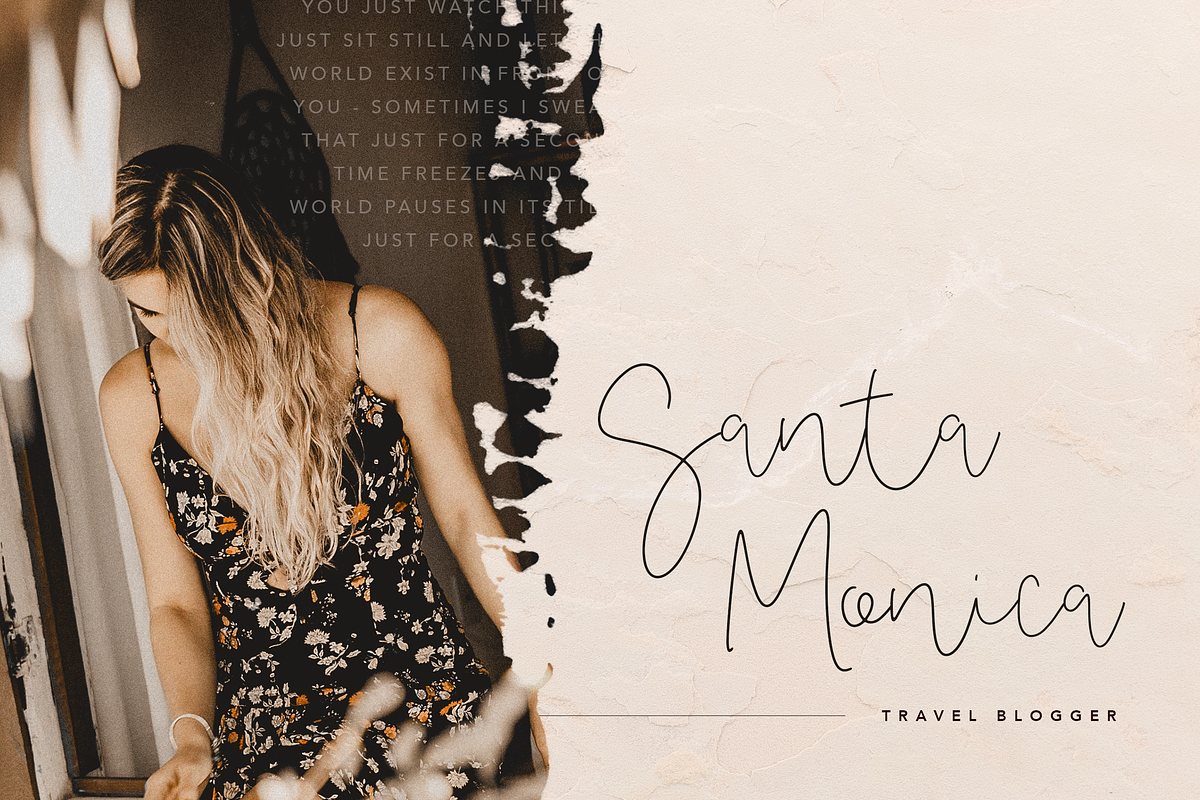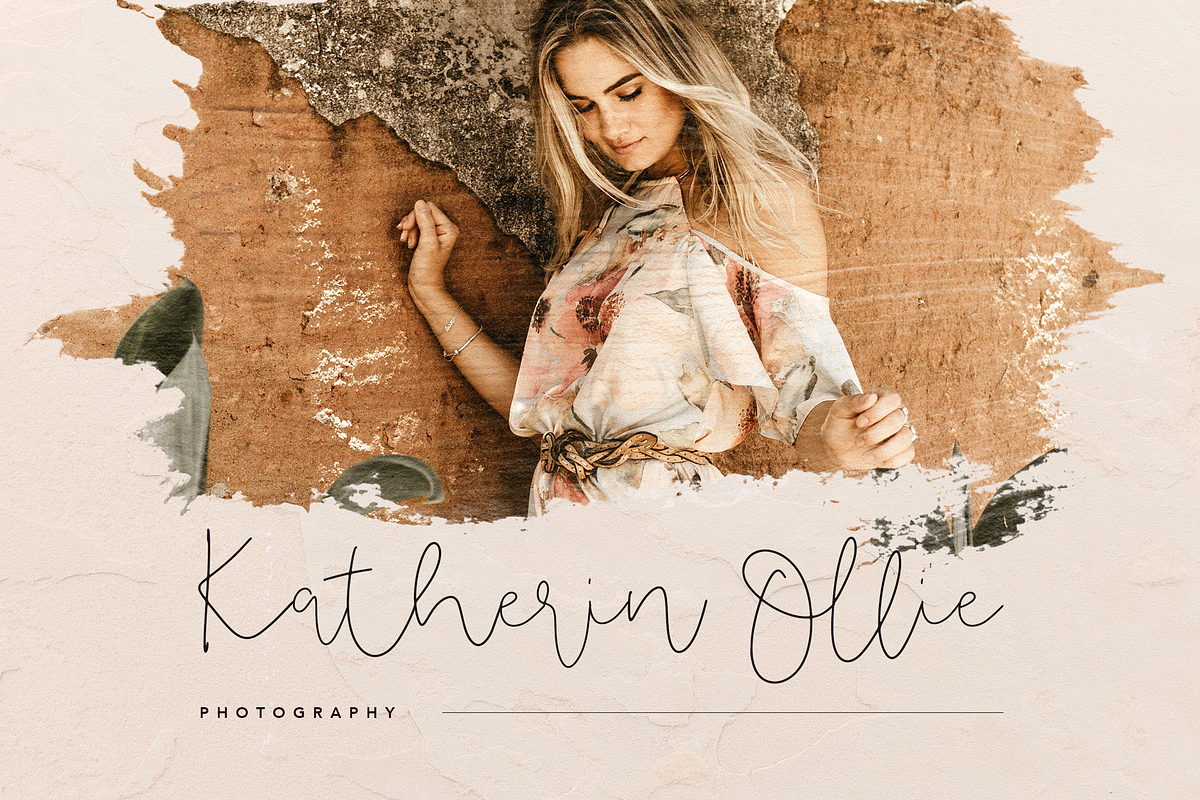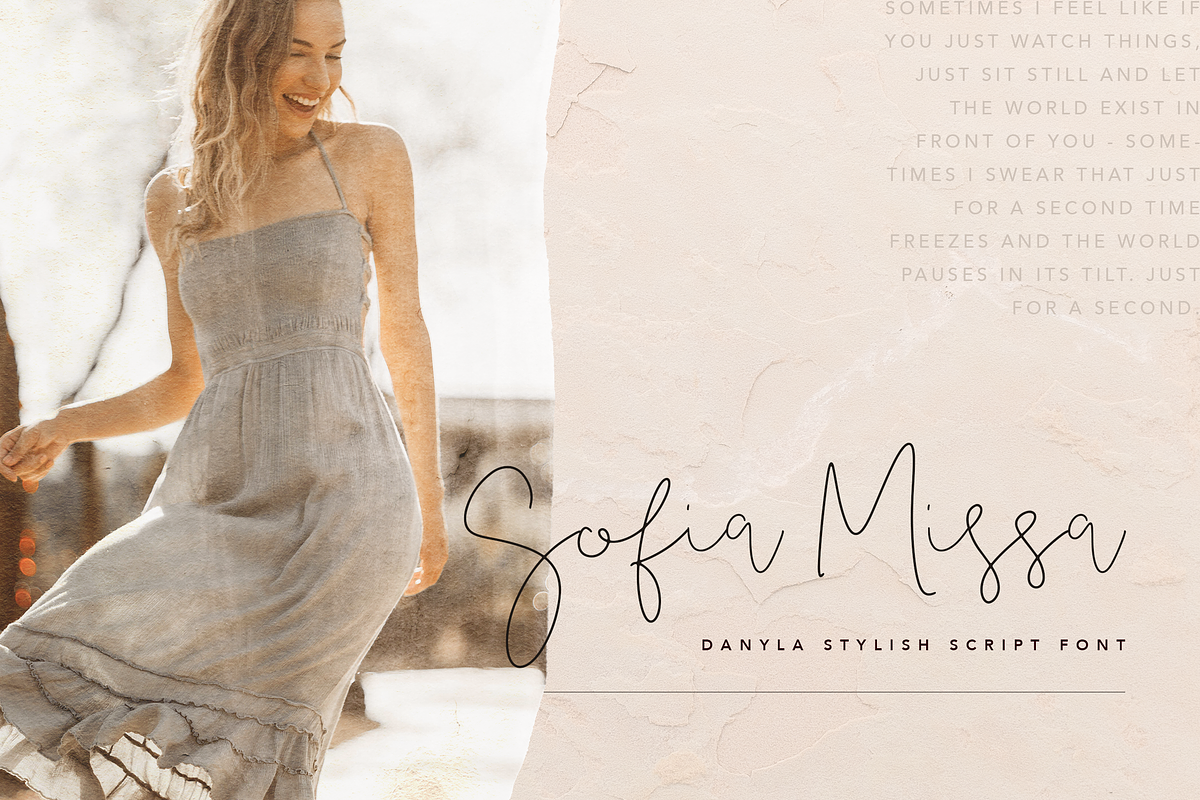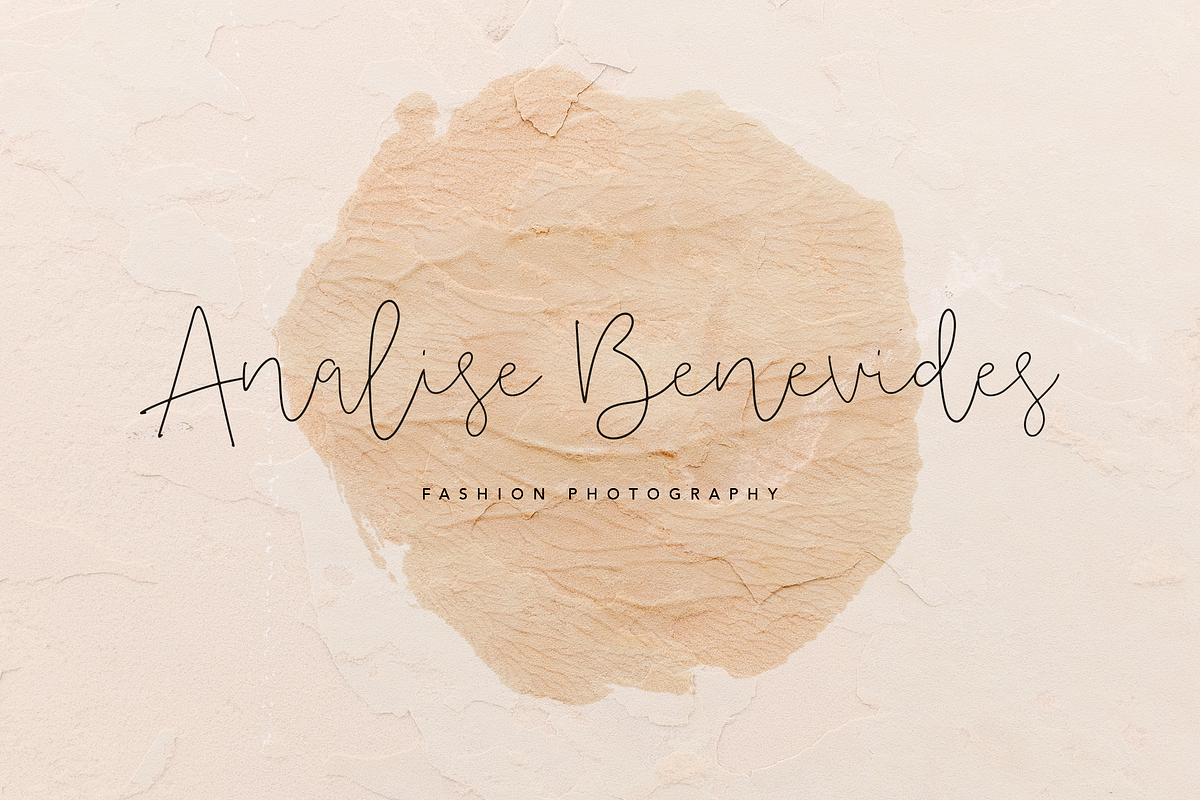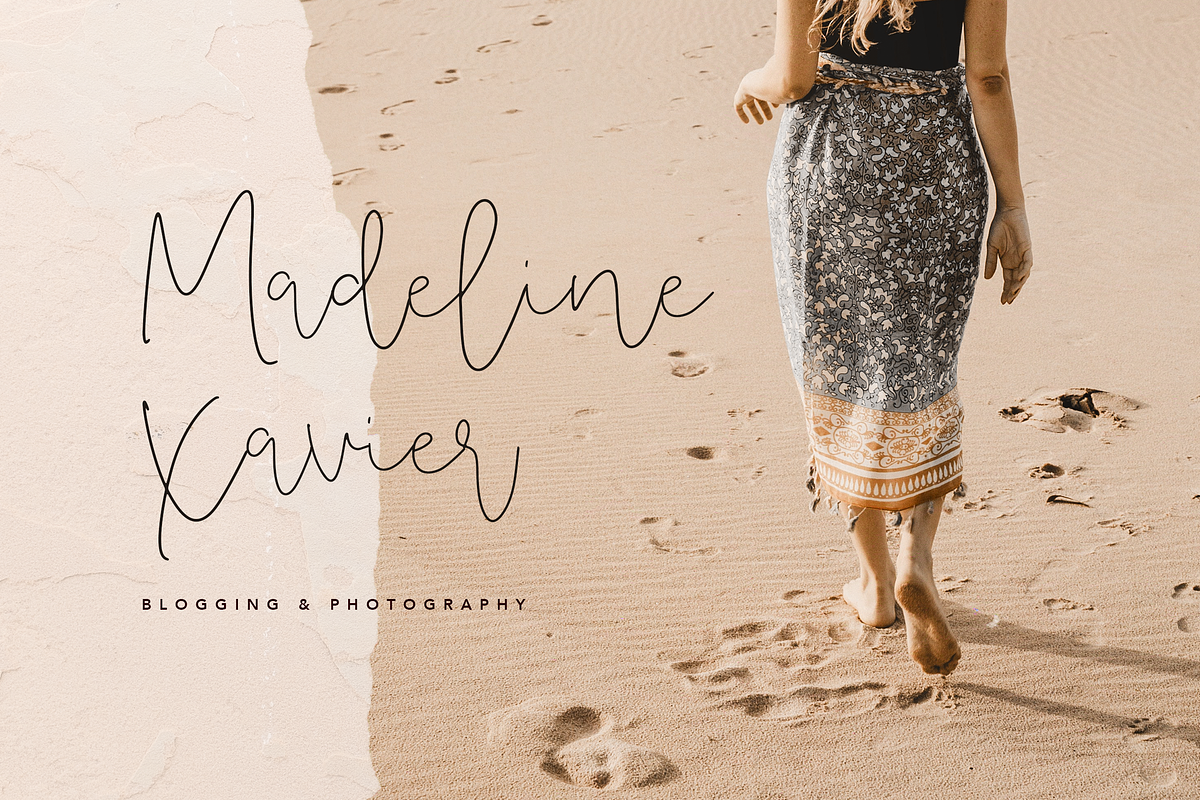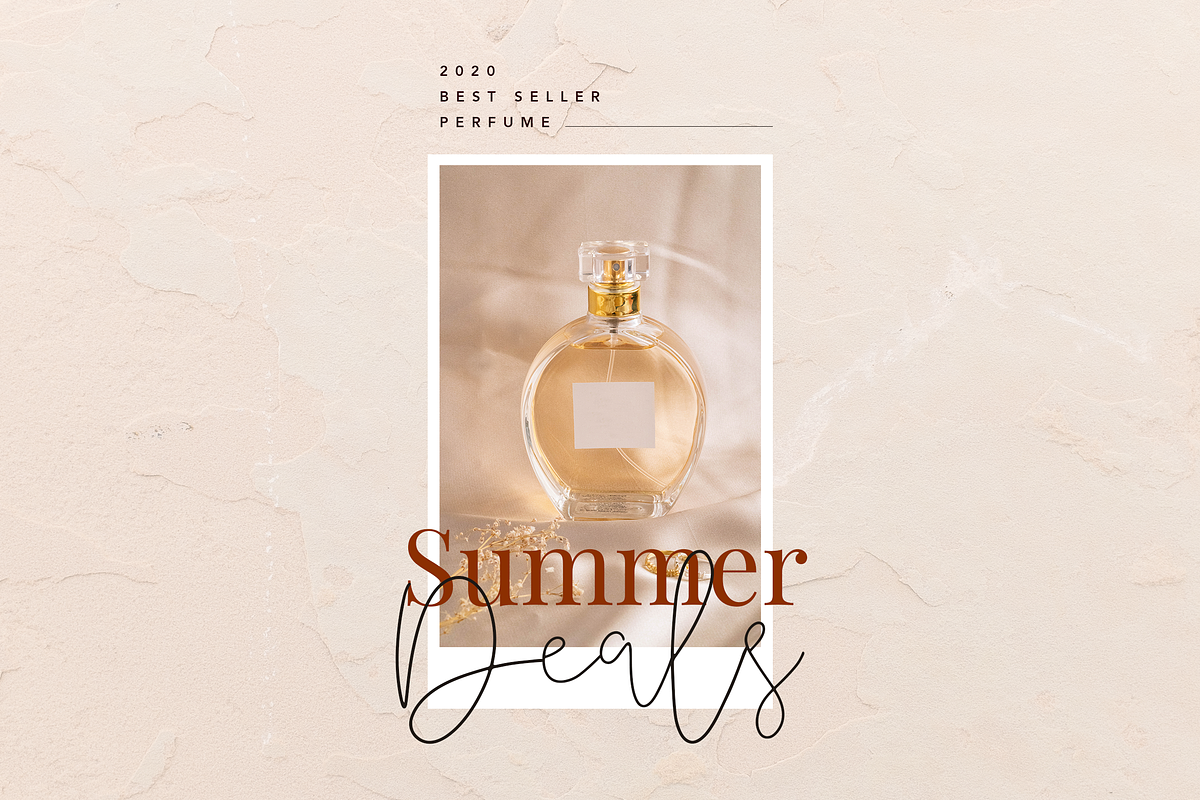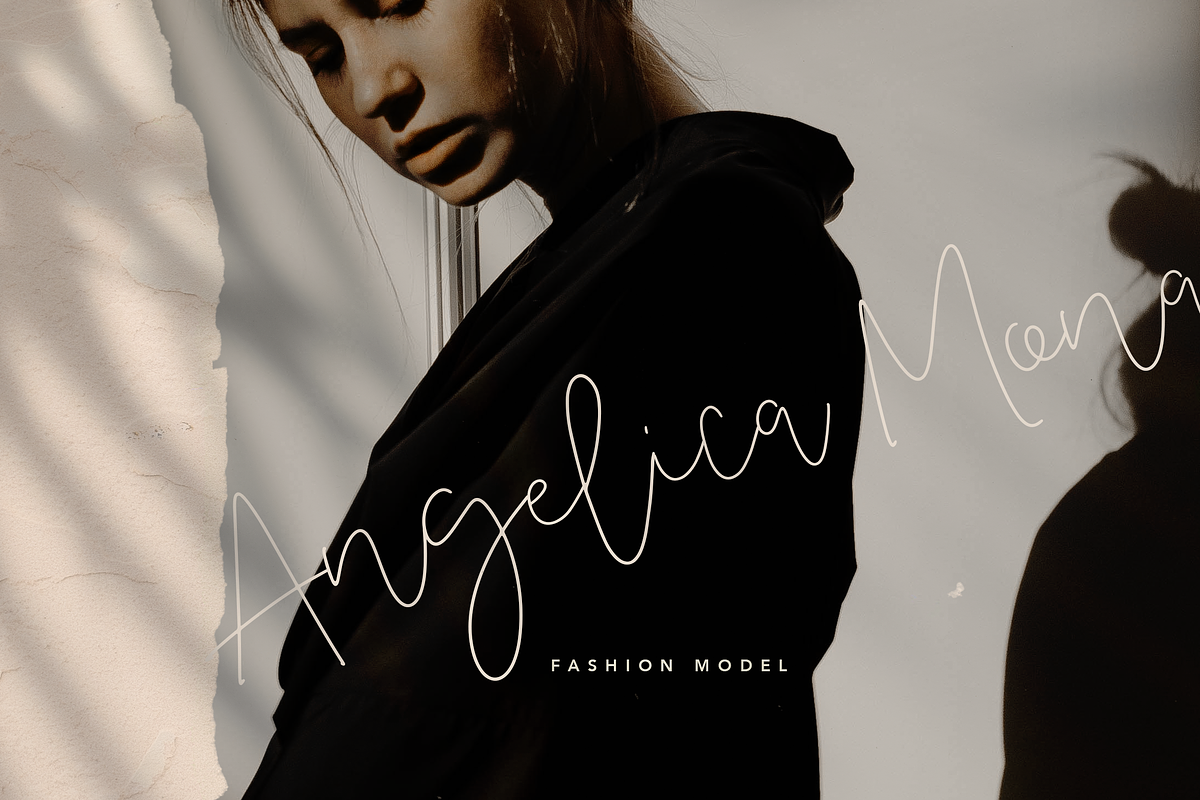
Danyla Stylish Signature Font
Introducing our new font Danyla Stylish Signature Font !!! ❤️
Danyla is a Beauty and Stylish signature font which is perfect for branding projects, logo, wedding designs, social media posts, advertisements, quoted text, signature, product packaging, product designs, label, photography, watermark, invitation, stationery, fashion, boutique, furniture, and any projects, it makes with a high level of legibility. It's also a perfect fit for a beauty-themed - or a stylish text overlay to any background image.